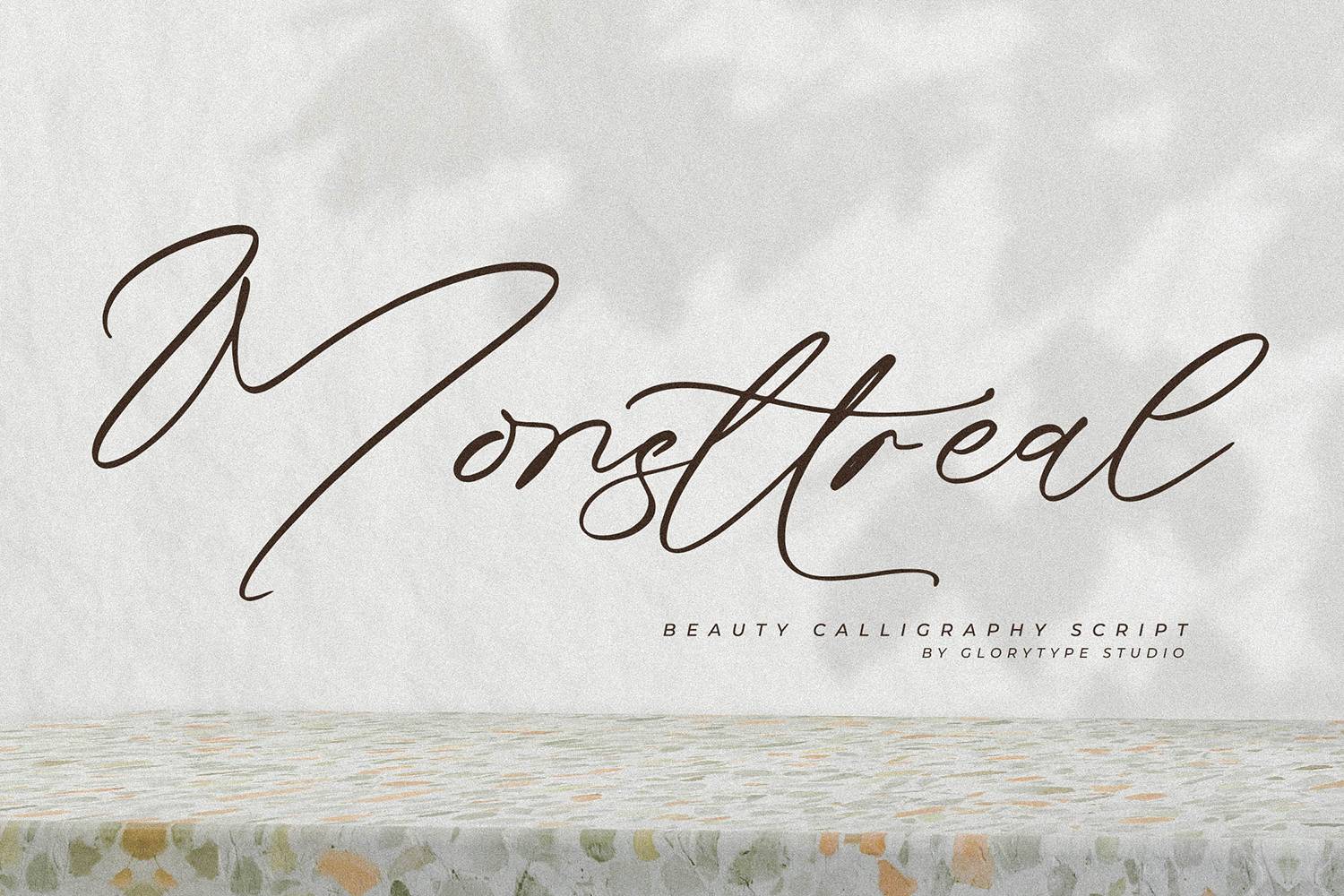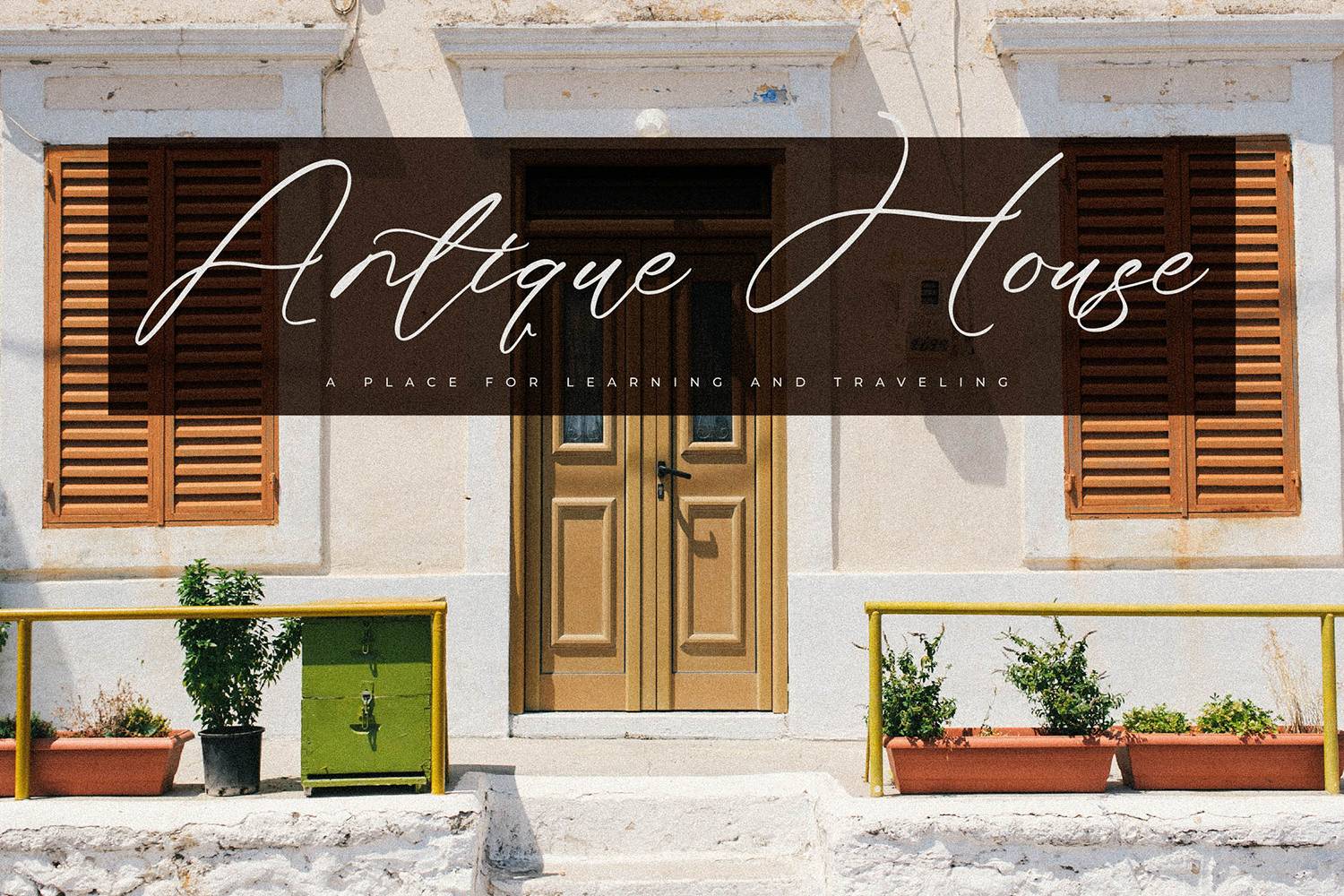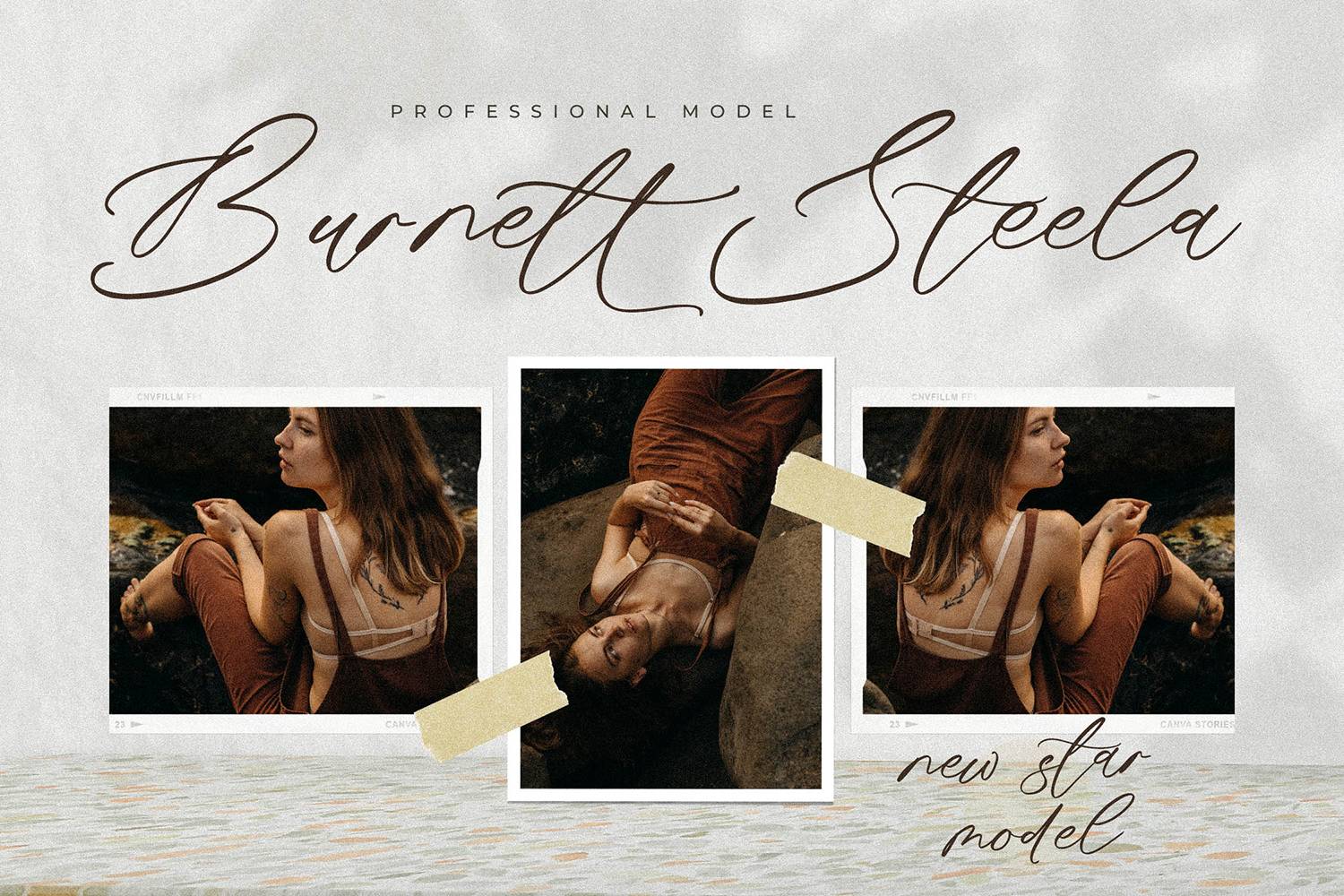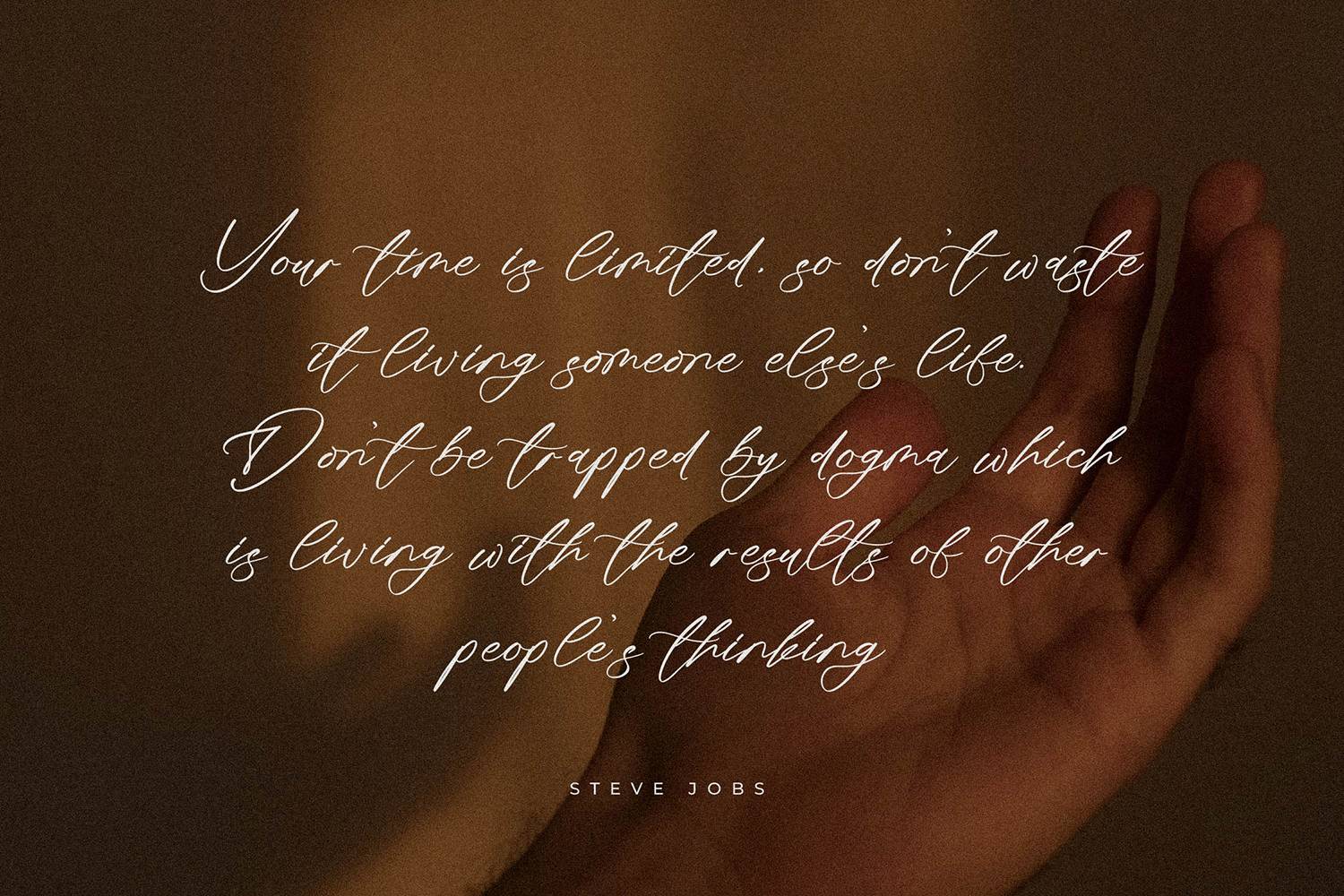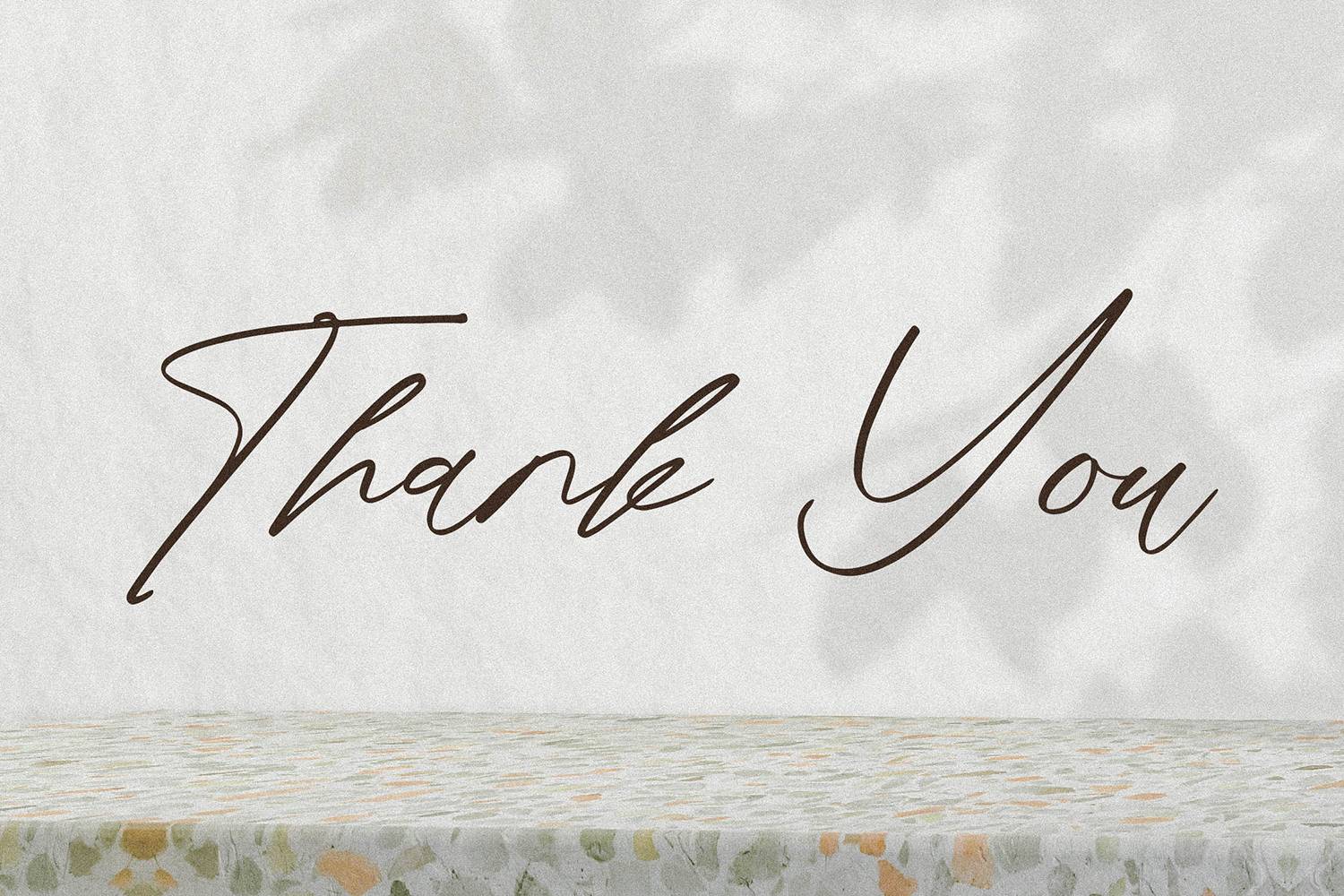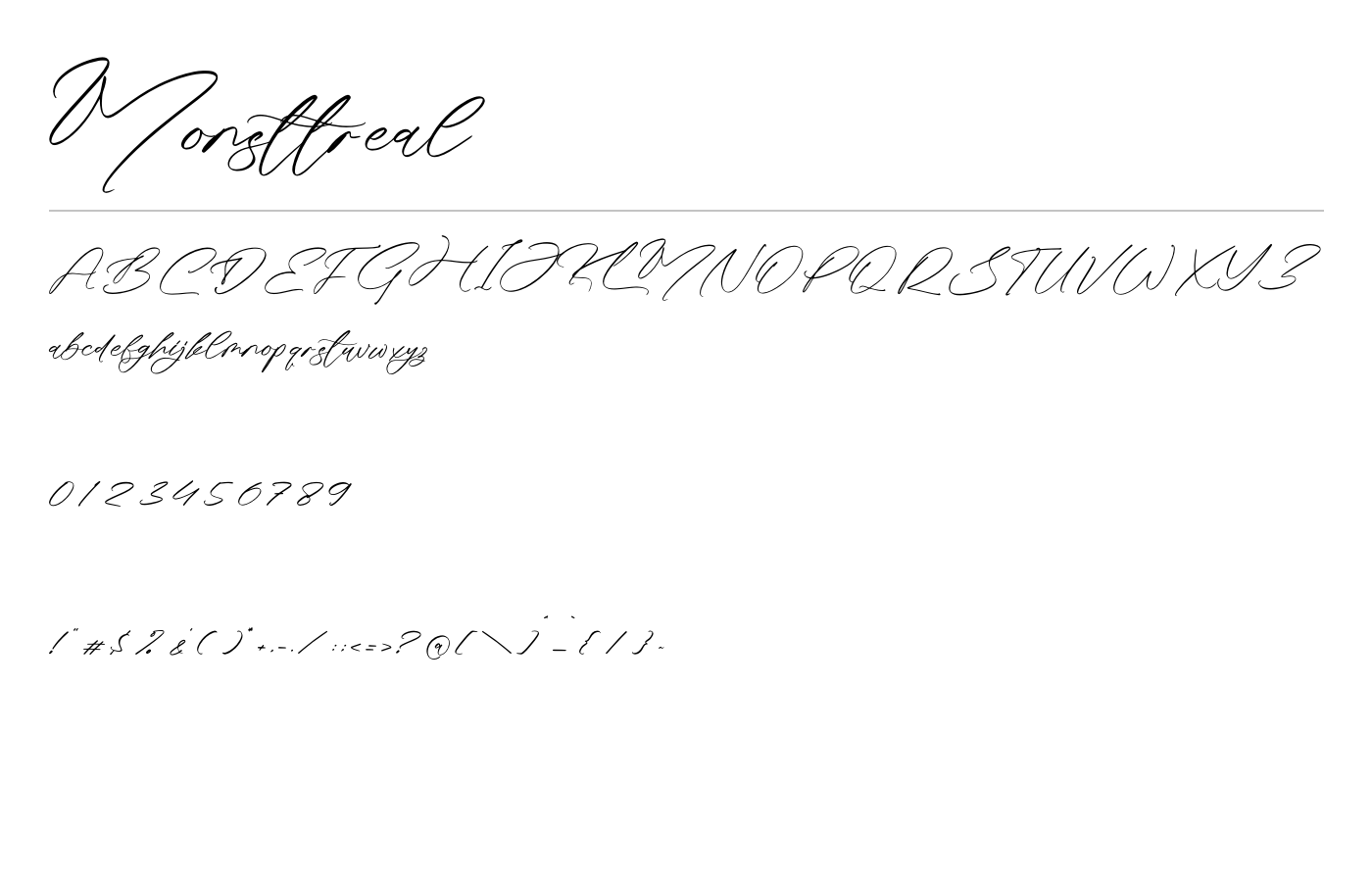
Monsttreal is a delicate, elegant script font with slender, flowing strokes that evoke a natural handwritten style. Its light weight and graceful curves make it perfect for adding a touch of sophistication and personal charm to invitations, branding, and editorial designs. This font shines in uses where a refined, intimate, and artistic feel is desired.
Monsttreal Font
About Monsttreal Font